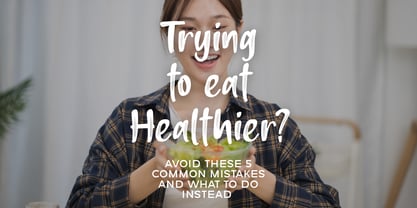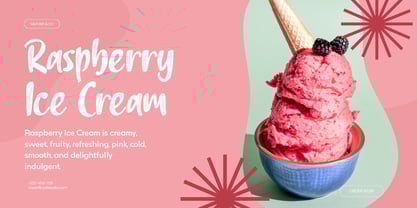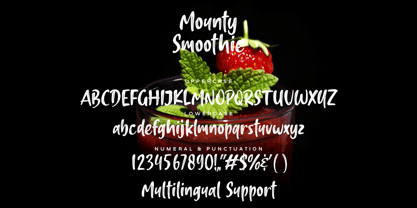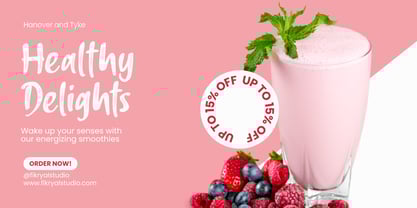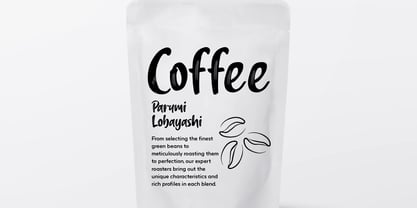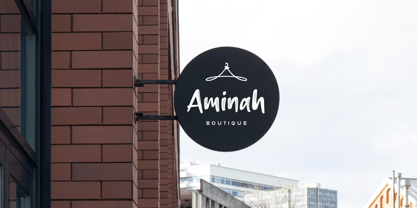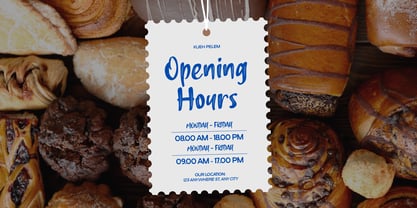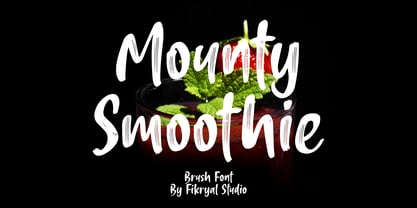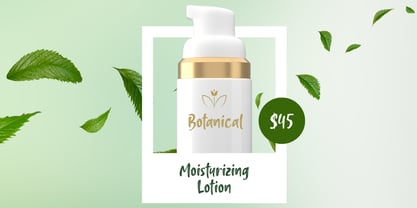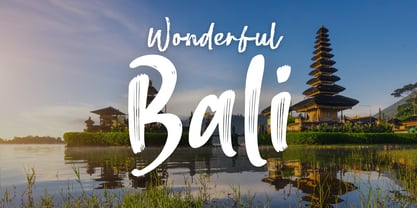
Mounty Smoothie
by Fikryal
The Mounty Smoothie Font Family was designed by Muhammad Fikry and published by Fikryal. Mounty Smoothie contains 1 styles.
Introducing Mounty Smoothy, a bold and playful handwritten brush font that brings a fresh and energetic personality to your designs. Inspired by natural strokes and smoothie vibes, this font is perfect for branding projects, packaging, advertising, poster titles, social media content, and more.
With its casual brush texture and slightly messy charm, Mounty Smoothy adds a handcrafted, personal touch while maintaining legibility and impact. Whether you’re designing for food & beverage brands, lifestyle content, or eye-catching merchandise, Mounty Smoothy will deliver flavor and character in every letter.
• Mounty Smoothy
• Uppercase & Lowercase Letters
• Numbers & Punctuation
• Multilingual Support
Let your designs stand out with the delicious personality of Mounty Smoothy – where creativity meets flavor!